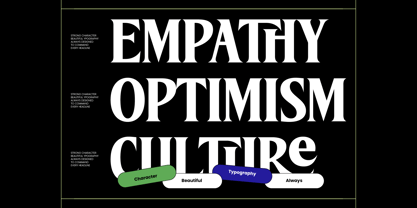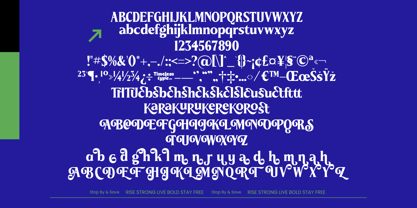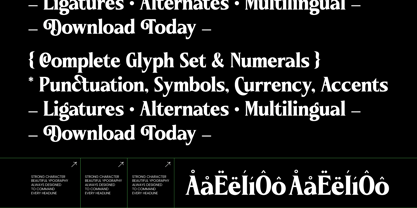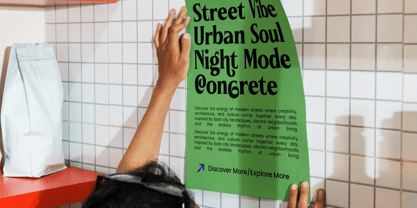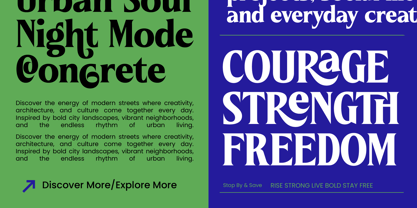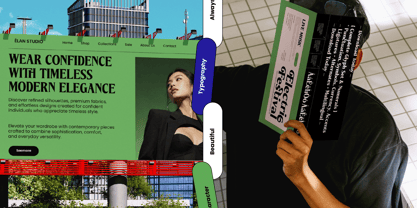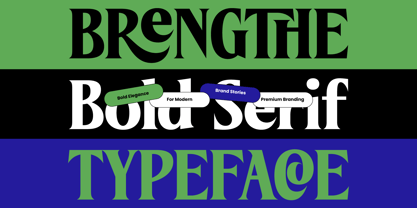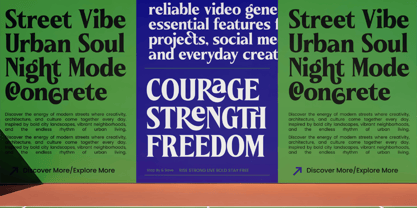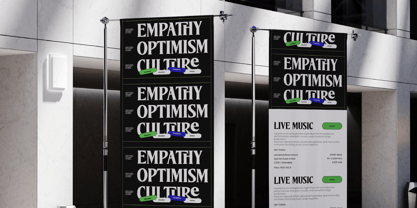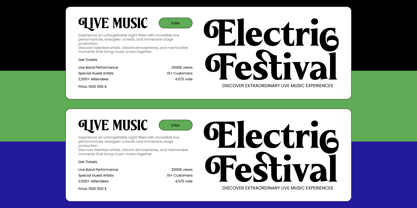
Brengthe
von Timelesstype Studio
Die Schriftfamilie Brengthe wurde von Heru Utama Putra entworfen und von Timelesstype Studio veröffentlicht. Brengthe enthält 2 Stile und Familienpaketoptionen. Mehr über diese Familie
Elevate your creative vision with Brengthe - Modern Editorial Serif, a typeface that embodies the pinnacle of contemporary sophistication and high-contrast elegance. This bold serif strikes a perfect balance between classical proportions and modern flair, making it an essential tool for designers seeking a lasting impression. Its powerful letterforms command attention, ensuring that every headline exudes prestige and authority.